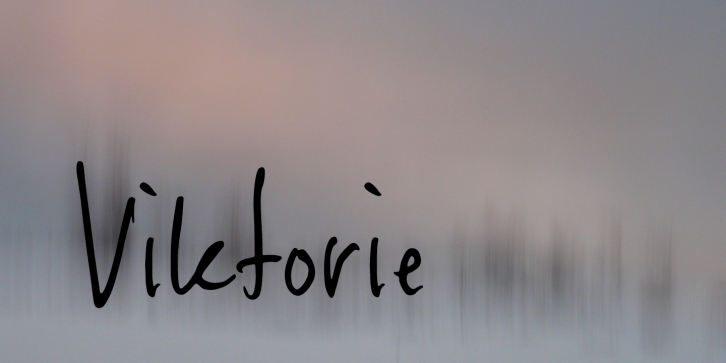
Viktorieâ„¢ might easily be mistaken for the handwriting of a note-taker in a hurry. Curiously legible yet inspiring unleashed, the font comes with true small caps and full Latin support.